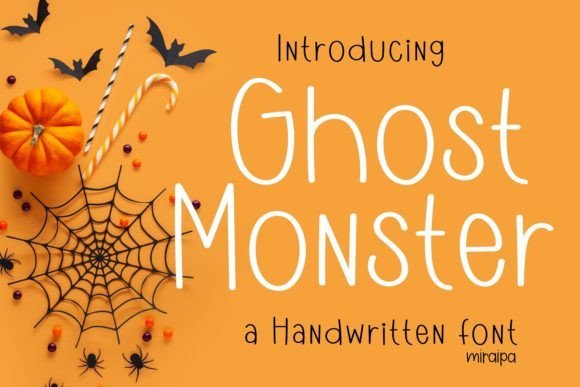
Bring Your Creations to Life with Ghost Monster Font
Have you ever found yourself stuck in front of a blank page, staring at a sea of possibilities, but unsure of where to start? That’s when the spark of creativity hits – and for many of us, it’s the perfect moment to break out our trusty fonts and let our imagination run wild. For designers and DIY enthusiasts alike, the right font can be the key to unlocking a project’s full potential.
Enter Ghost Monster Font, a beautiful, handwritten font that’s perfect for adding a friendly and lovely touch to any project. Whether you’re planning a wedding, creating a spooky Halloween display, or simply need a font for your daily planner, Ghost Monster Font is a valuable addition to any designer’s library. With its versatility and charm, this font is sure to bring any DIY project to life.
- Font Family: Ghost Monster is a sans-serif font family with a unique blend of futuristic and minimalist design elements.
- Character Count: The Ghost Monster font family consists of 256 characters, including uppercase and lowercase letters, numbers, and special characters.
- Unique Characteristics: Features a distinctive, hand-crafted feel with subtle irregularities and a clean, modern aesthetic.
Ghost Monster Font Review
I’ve had the chance to play around with the Ghost Monster Font, and I must say it’s a unique and intriguing font. Here are some things that I think work well:
- ✨ The font’s ghostly aesthetic is perfect for creating spooky or eerie designs, and it’s surprisingly versatile.
- ✨ The font’s irregularities and imperfections give it a hand-crafted feel that can add character to your designs.
- ✨ The font is highly customizable, allowing you to adjust the spacing and texture to suit your needs.
However, I do have a few concerns:
- ⚠️ The font may be too irregular for some designers, making it difficult to read at larger font sizes.
- ⚠️ The font’s imperfections can also make it difficult to achieve a uniform look in certain designs.
- ⚠️ The font may not be suitable for body text, as it can be quite fatiguing to read.
Overall, I think the Ghost Monster Font is a great addition to any designer’s toolkit, but it’s not without its limitations. With careful use and customization, it can be a powerful tool for creating unique and eye-catching designs.
The “Ghost Monster Font” is a versatile font that can be used in various creative projects, including:
– Horror movie posters
– Sci-fi book covers
– Gaming community logos
– Fantasy-themed social media graphics
Alternative Fonts to Ghost Monster Font
The Great Vibes Font is a modern, cursive script font that can be used for titles and headings. It has a similar elegant and playful feel to Ghost Monster Font but with a more refined and sophisticated look.
Comparison: Great Vibes Font is more suitable for formal and creative projects, whereas Ghost Monster Font has a more playful and quirky feel.
The Carolyna Pro Font is a stylish, modern script font that can be used for titles, headings, and body text. It has a similar sense of elegance and sophistication to Ghost Monster Font but with a more refined and polished look.
Comparison: Carolyna Pro Font is more versatile and can be used for a wide range of projects, whereas Ghost Monster Font has a more specific, playful feel.
The Alex Brush Font is a elegant, handwritten script font that can be used for titles, headings, and body text. It has a similar sense of elegance and sophistication to Ghost Monster Font but with a more subtle and understated look.